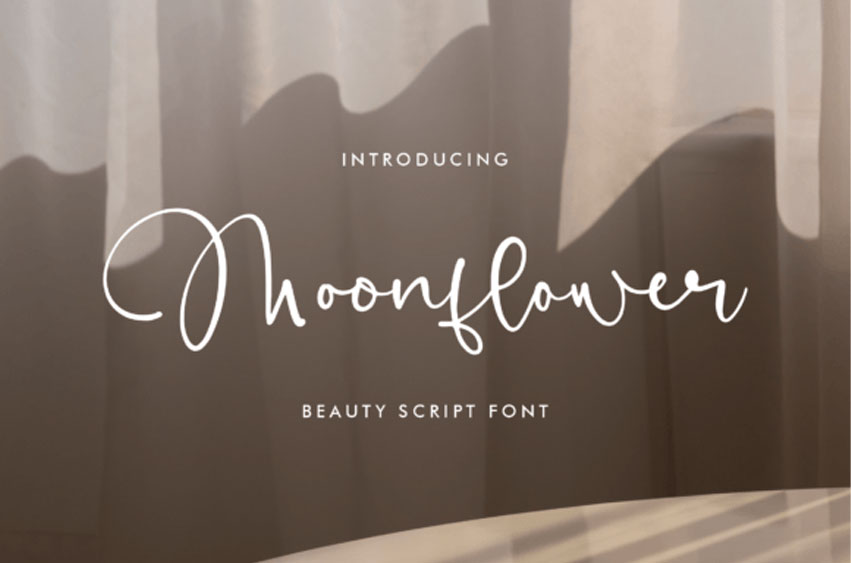
Moonflower Font
Moonflower Font Beauty Script Font suitable for any projects such as logos, branding projects, homeware designs, product packaging, mugs, quotes, posters, shopping bags, t-shirts, book covers, name cards, invitation cards, greeting cards, labels, photography, watermark, special events, and all your other lovely projects that need a beautiful script taste.
Perfectly crafted to meet all your design needs.